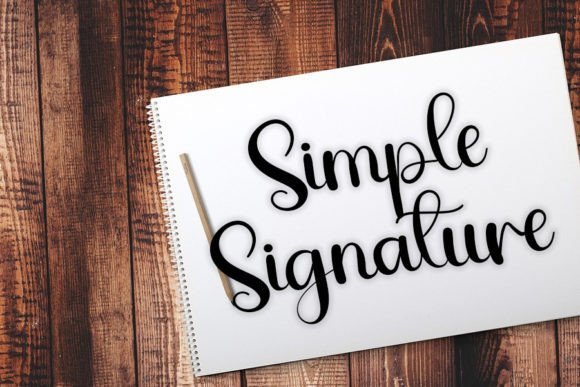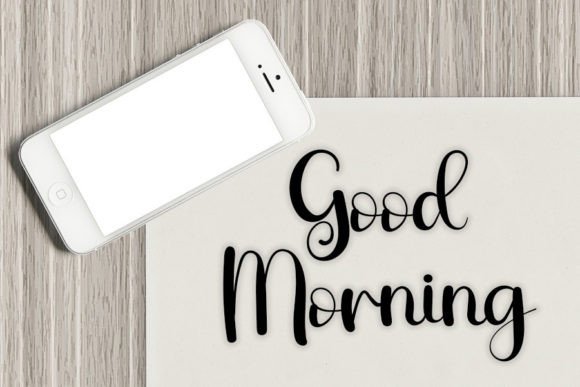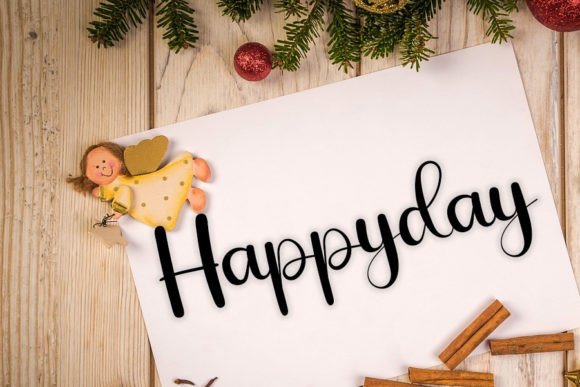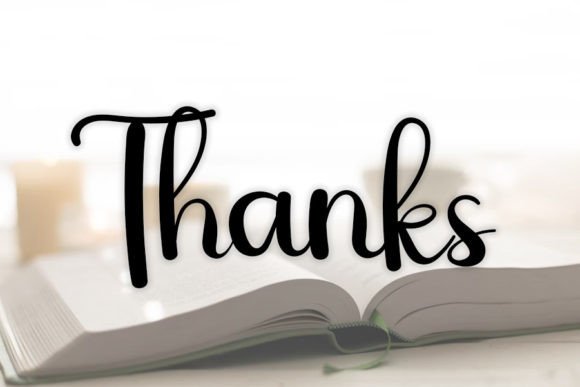
Discover the Magic of Holiday Font
As designers, we’ve all been there – staring at a blank page, desperate for the perfect font to bring our vision to life. The search for the ideal script font can be a daunting task, but what if we told you that the perfect fit is just around the corner?
Meet Holiday Font, a stunning script font that exudes elegance and sophistication. Designed to evoke the timeless beauty of classic calligraphy, Holiday Font is the perfect choice for designers looking to add a touch of sophistication to their projects. With its balanced and varied strokes, this font is not too thin and not too thick – making it a versatile choice for any design project.
Whether you’re working on a wedding invitation, a branding project, or a packaging design, Holiday Font is sure to elevate your work to new heights. Its impeccable form and contemporary atmosphere make it a valuable addition to any designer’s toolkit.
Holiday Font Key Features
- Font Family: Holiday Font is a unique, hand-drawn font designed for festive and holiday-themed applications.
- Unique Characteristics: The font features intricate, hand-drawn illustrations and ornaments, making it perfect for creating eye-catching holiday-themed designs, such as Christmas cards, gift tags, and party invitations.
Designer Review: Holiday Font
Overall, I have mixed feelings about the Holiday Font. On one hand, it has some great qualities that make it stand out. ✨ The font’s playful, festive feel is perfect for any project that needs a touch of holiday cheer. The bold, cursive lines evoke the magic of the season, and the font’s versatility makes it suitable for a wide range of designs, from cards to gift tags.
However, there are some limitations that prevent the font from being truly exceptional. ⚠️ One of the main issues is the font’s lack of consistency across different font sizes. At smaller sizes, the lines can become quite messy and hard to read, which can be a problem for projects that require fine print.
Additionally, the font’s cursive style can be a bit too ornate for some projects, making it difficult to read in certain contexts.
- ✨ Playful, festive feel
- ✨ Versatile and suitable for a wide range of designs
- ⚠️ Lack of consistency across different font sizes
- ⚠️ Cursive style can be too ornate for some projects
The Holiday Font is a fun and festive addition to any design project, but it falls short in terms of consistency and readability. While it’s perfect for projects that require a bold, playful feel, it may not be the best choice for more formal or text-heavy projects.
Tips for Getting the Most Out of Holiday Font
Here are some tips for getting the most out of Holiday Font:
- Use Holiday Font for holiday-themed projects, such as Christmas or Halloween cards.
- Pair Holiday Font with other festive graphics and images for a cohesive look.
Here are some common use cases for Holiday Font:
- Christmas cards and invitations.
- Halloween decorations and party invitations.
- New Year’s Eve party invitations and decorations.